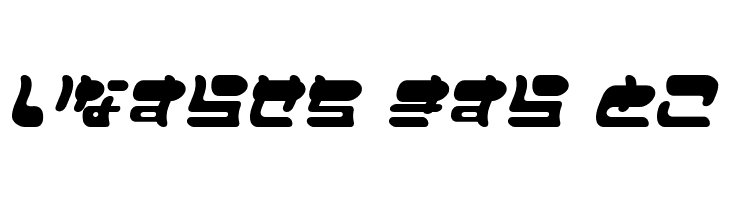
A playful, rounded font with a bold and bubbly appearance.
A bold, playful font with a bubbly, cartoonish style and high contrast strokes.
A playful, hand-drawn font with a whimsical and dynamic style.
A bold, playful font with rounded characters and a whimsical style.
A playful, bold, and rounded font with a cartoonish, bubble-like appearance.
A bold, playful font with rounded edges and a bubbly appearance.
A playful, bubbly font with bold, rounded characters and a cartoonish style.
A playful, bold font with rounded, bubble-like characters perfect for fun designs.